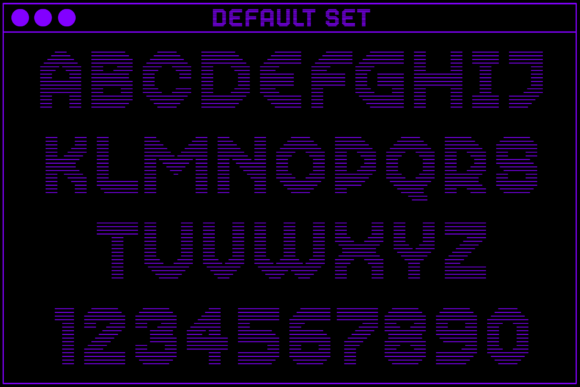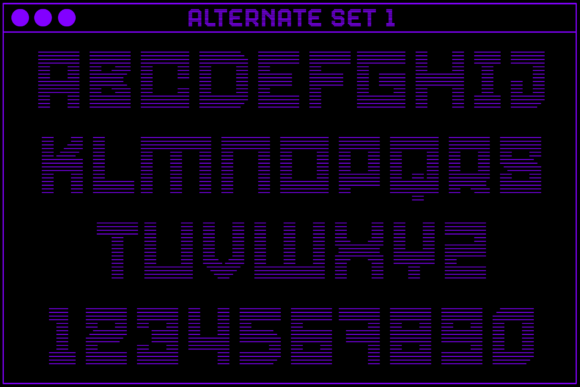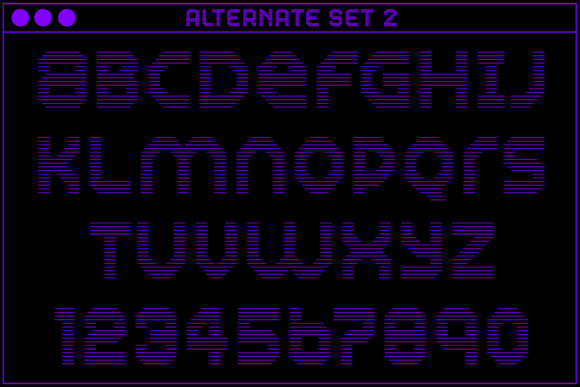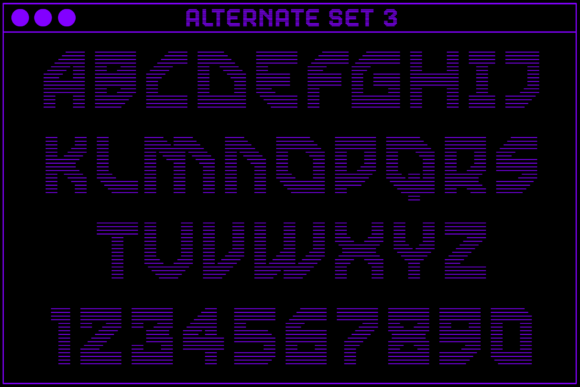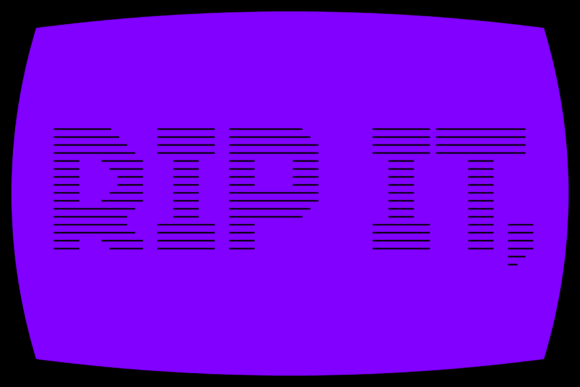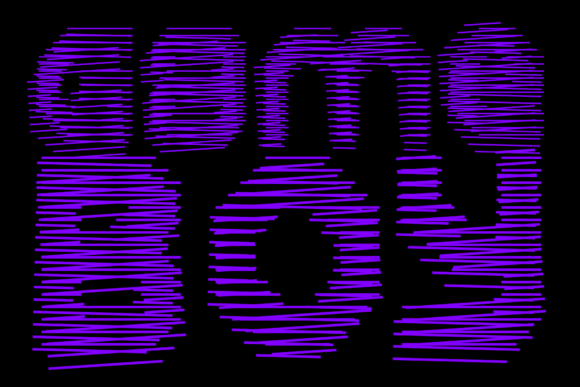
Introduction to MultiType Rows Regular 3 Font
Have you ever been working on a creative project, pouring your heart and soul into it, and just needed that one unique element to make it truly stand out? For designers, finding the perfect font can be the difference between a good design and a great one. That’s where MultiType Rows Regular 3 Font comes in – a cool, pixelated display font that adds a distorted and trendy touch to any design.
This free download is a valuable resource for designers looking to add some personality to their work. With its unique shape and high quality design, MultiType Rows Regular 3 Font is perfect for projects that require a bit of edge and sophistication. Plus, with PUA encoding, you can access all glyphs and swashes with ease, giving you even more creative freedom.
- MultiType Rows Regular 3 Font includes 6 different styles with a transparent background, allowing for flexibility in design.
- Designed with a clean and modern aesthetic, making it suitable for a variety of design applications, from digital to print.
- Each character is carefully crafted to ensure high resolution and clarity, making it perfect for high-quality design projects.
Honest Review: MultiType Rows Regular 3 Font
- ✨ High quality: The MultiType Rows Regular 3 Font looks crisp and clean, even when used on a transparent background.
- ✨ Versatile: This font can be used for a wide range of creative projects, from editorial design to branding.
- ⚠️ Limited customization: While the font itself is high quality, it’s not particularly customizable, which might be a drawback for some designers.
- ⚠️ Not ideal for small text: Due to its regular style, the font can become difficult to read when used in small sizes.
Overall, I’m impressed with the MultiType Rows Regular 3 Font. It’s a solid design resource that can add a touch of sophistication to any creative project. While it’s not perfect, its strengths outweigh its limitations, making it a valuable addition to any designer’s toolkit.
Use the font on a transparent background to give your design a unique and modern look. Experiment with different font sizes and styles to create a visually appealing design. You can also use the font to create custom icons or graphics.
The MultiType Rows Regular 3 Font is perfect for creative projects such as branding, marketing materials, and web design. It’s also great for use in presentations, reports, and other business documents.